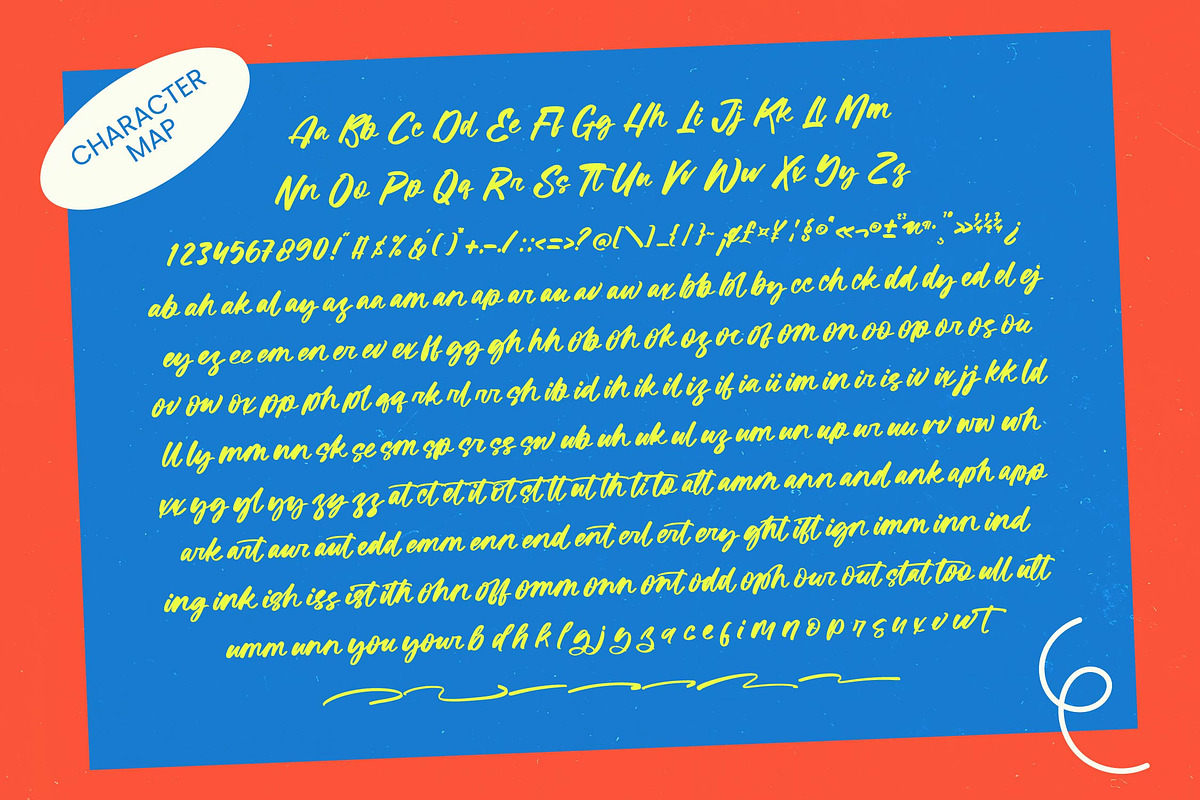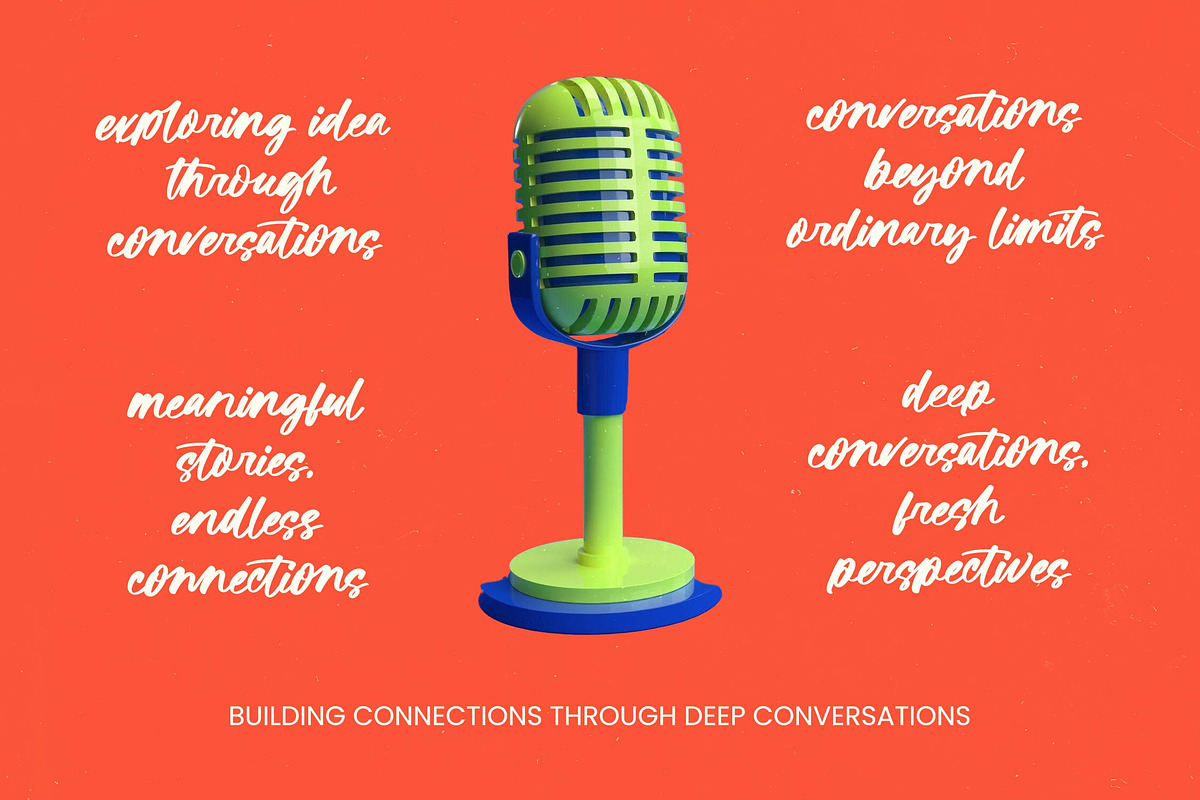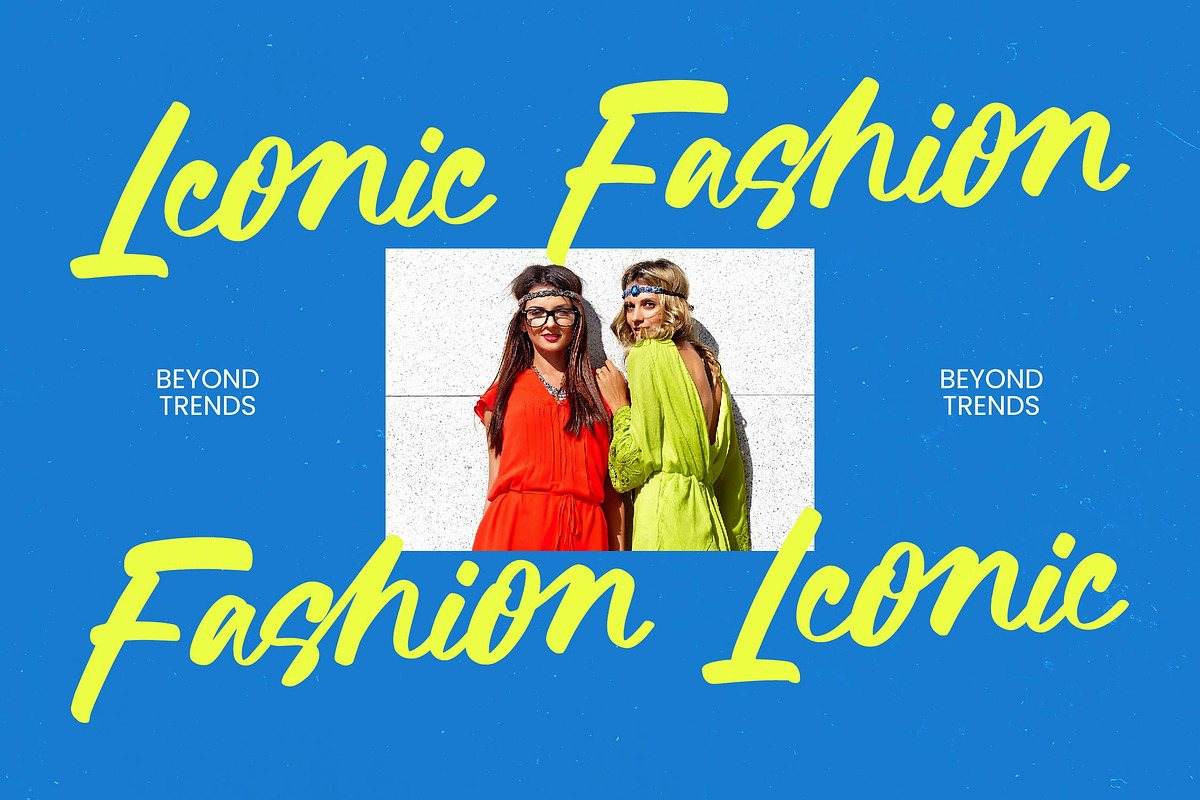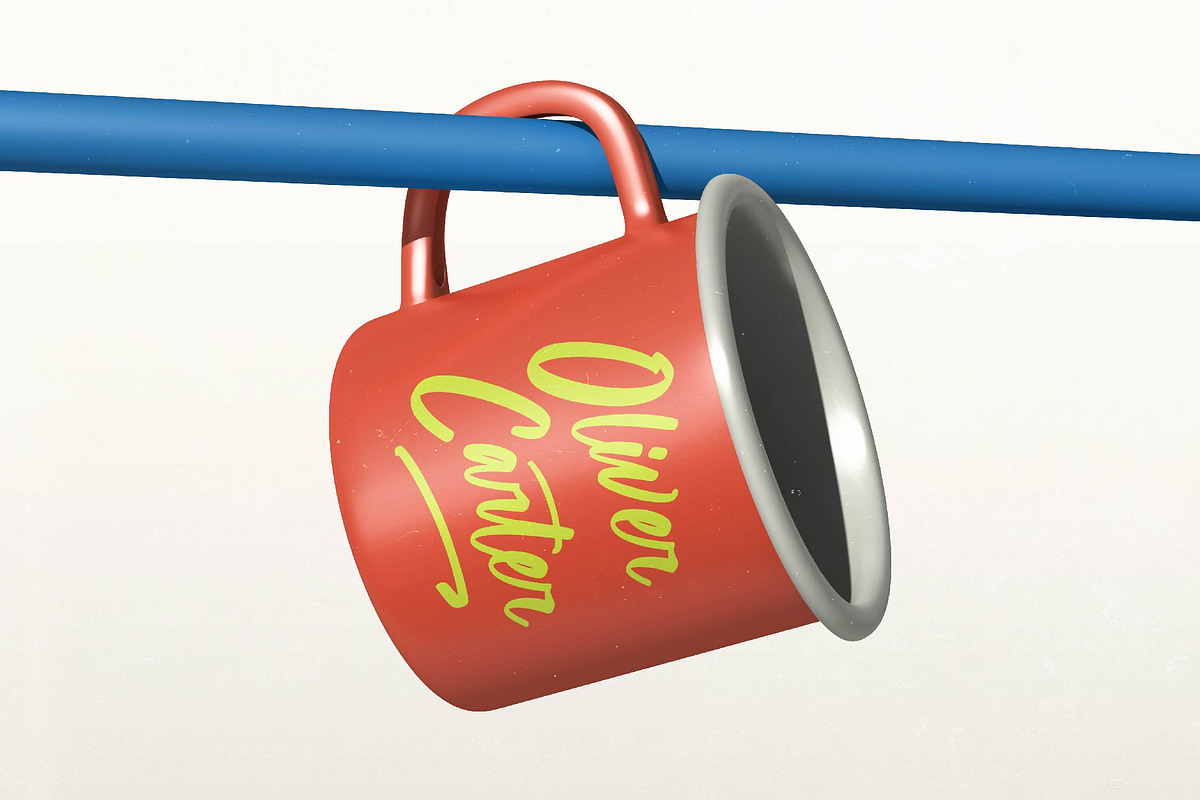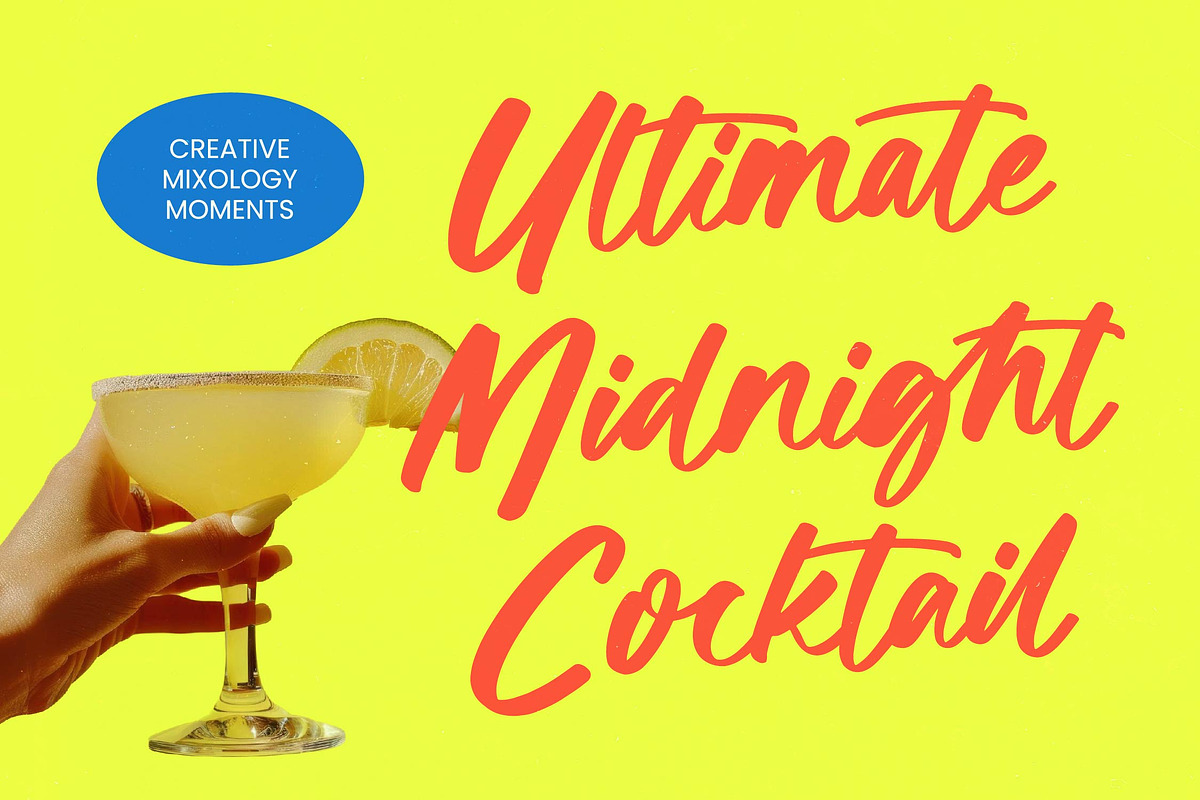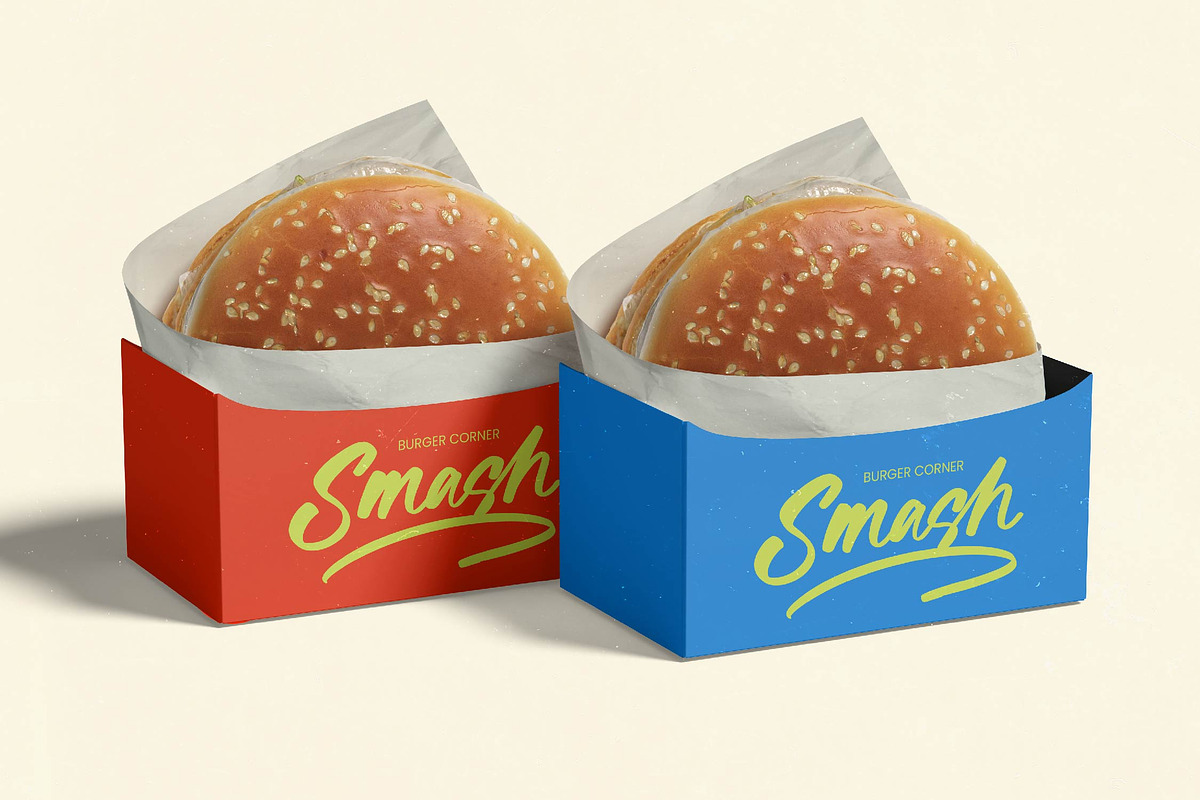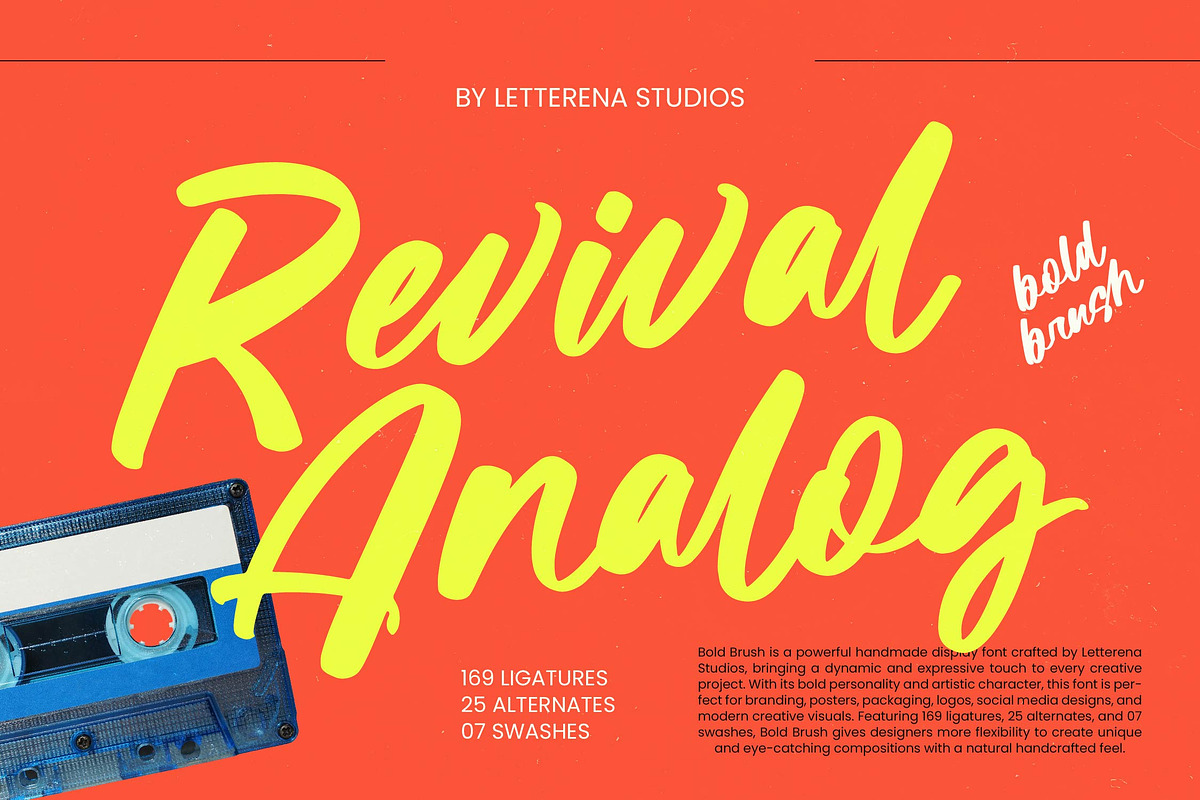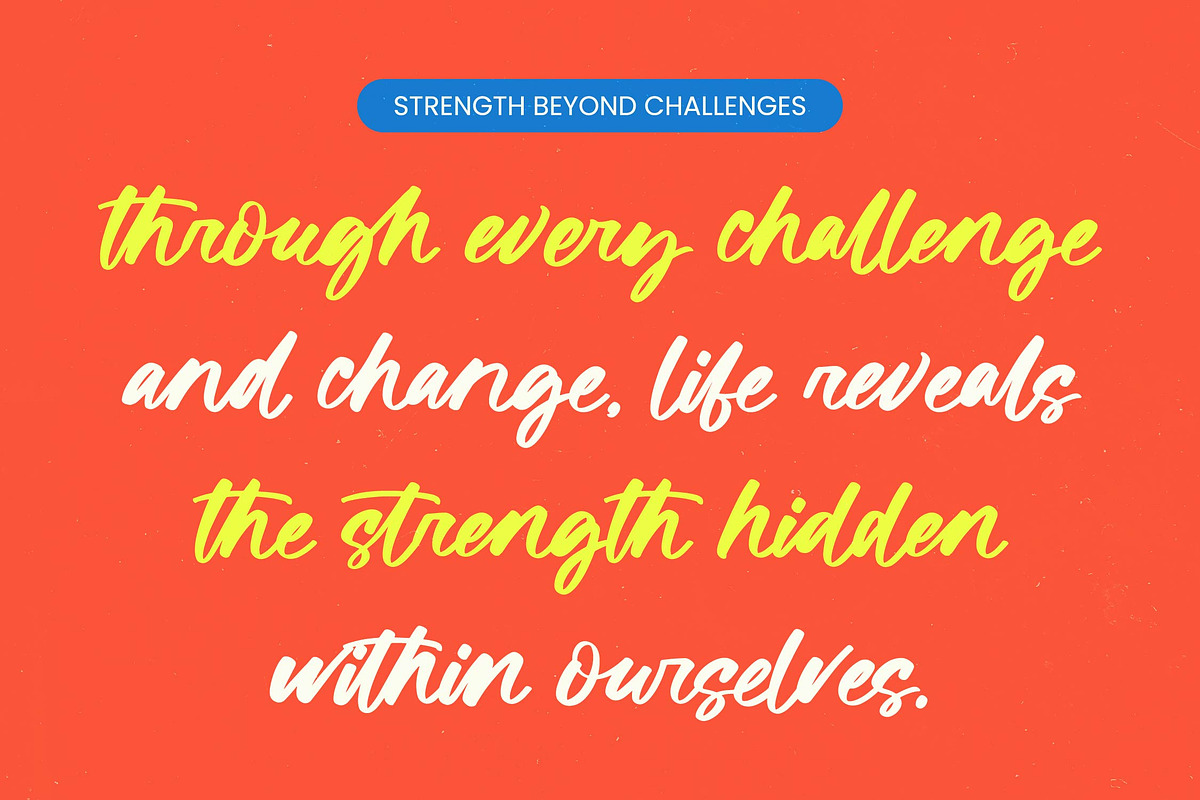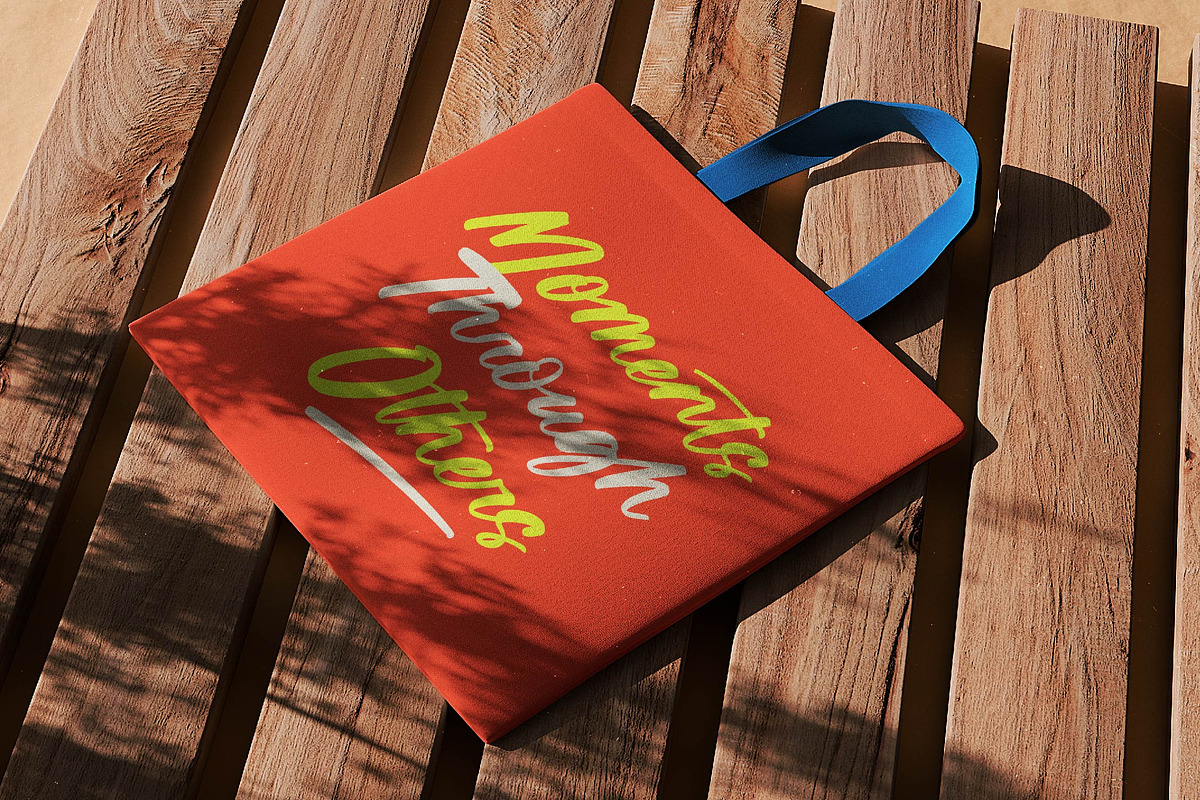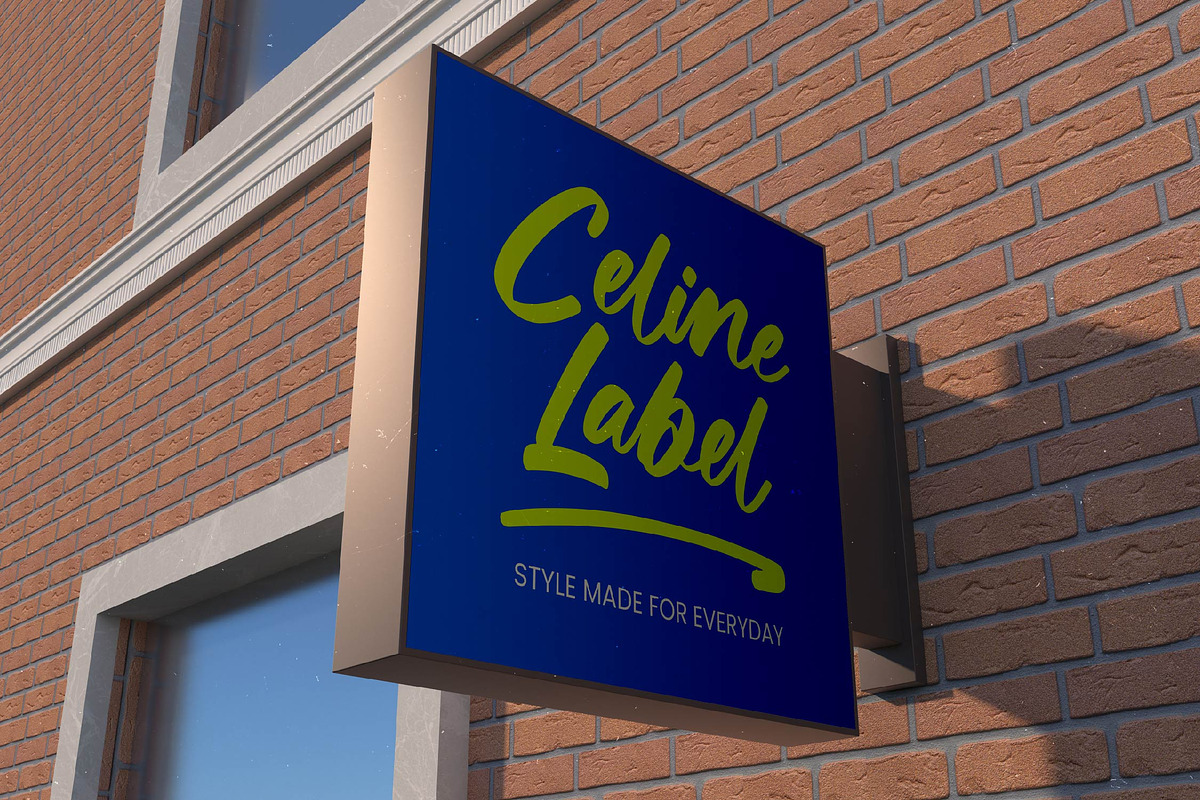
Revival Analog Bold Brush
Revival Analog - Bold Brush
Ignite your creative vision with the raw energy of a handcrafted masterpiece that commands attention instantly. Revival Analog - Bold Brush is a powerhouse display typeface characterized by its organic brush strokes and high-octane energy. Crafted by Letterena Studios, this font captures a modern-vintage aesthetic that feels both nostalgic and cutting-edge. It is designed to inject bold personality and a sense of movement into any layout, ensuring your message is never overlooked.
Elevate your brand identity with a professional tool specifically engineered for impactful visual storytelling across diverse media. Revival Analog - Bold Brush is the perfect choice for lifestyle branding, high-end packaging, and cinematic poster designs. Its expressive flourishes and hand-drawn texture make it ideal for logos, fashion editorials, and dynamic social media graphics where a human touch is essential for engagement.
Break through creative boundaries with an expansive set of features that guarantee typographic excellence in every composition. With its extensive multilingual support, Revival Analog - Bold Brush adapts seamlessly across global markets, making it incredibly versatile for international projects. Boasting 169 ligatures and 25 alternates, this font provides unparalleled creative flexibility, allowing designers to craft unique, customized letterforms that resonate with audiences worldwide.
Transform ordinary digital and print layouts into extraordinary statements of artistic sophistication and professional flair. Revival Analog - Bold Brush offers a comprehensive toolkit for the modern designer, blending raw authenticity with technical precision. By choosing Revival Analog - Bold Brush, you are investing in premium typography that delivers high-contrast results and a memorable brand presence that will endure in a competitive marketplace.